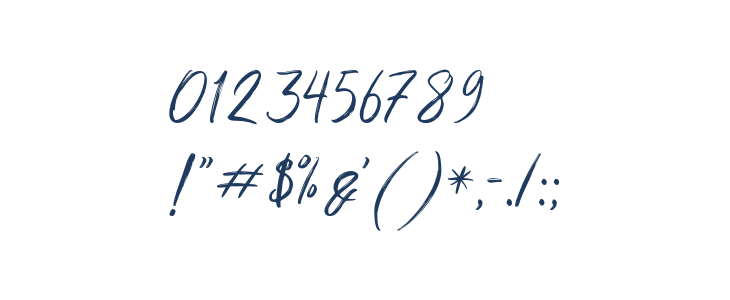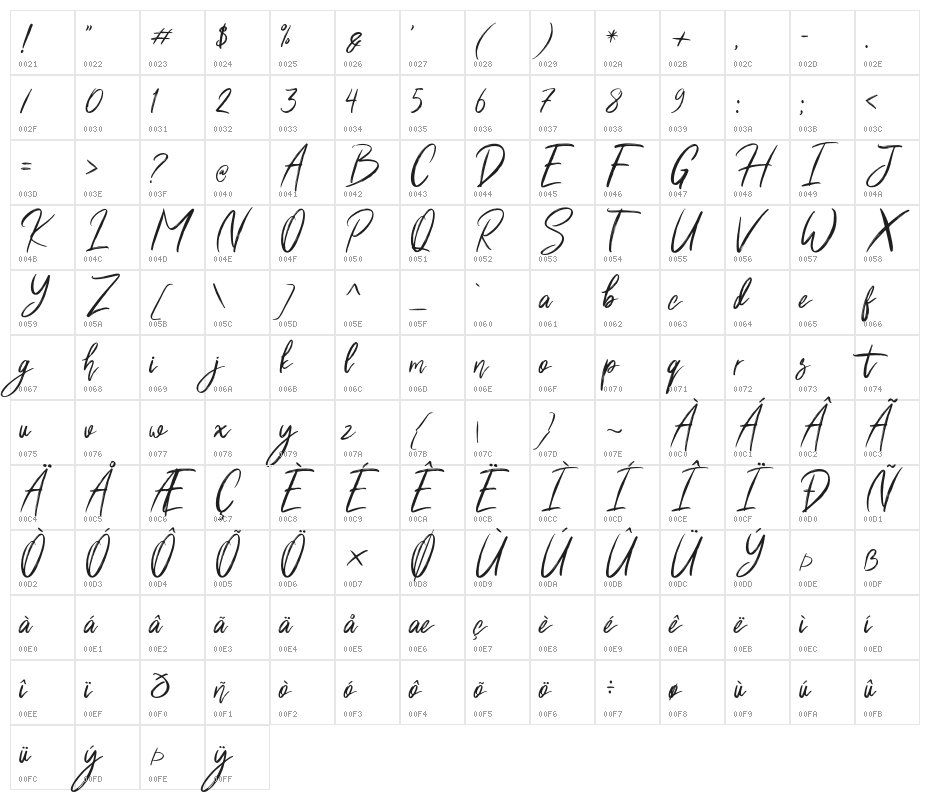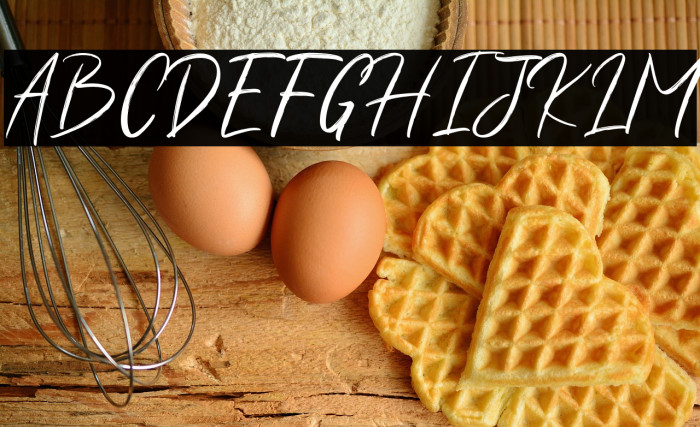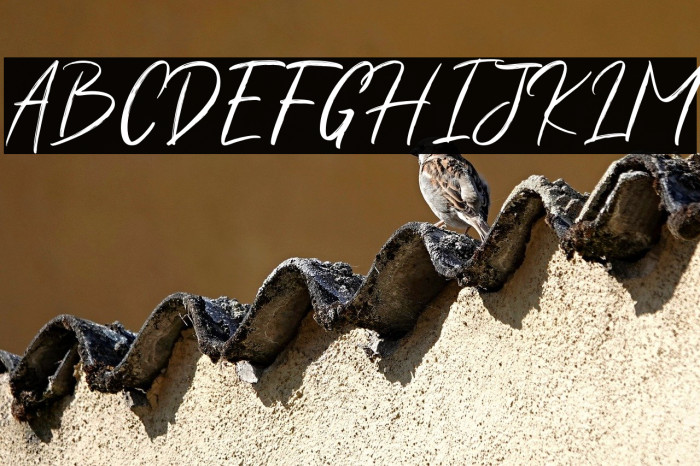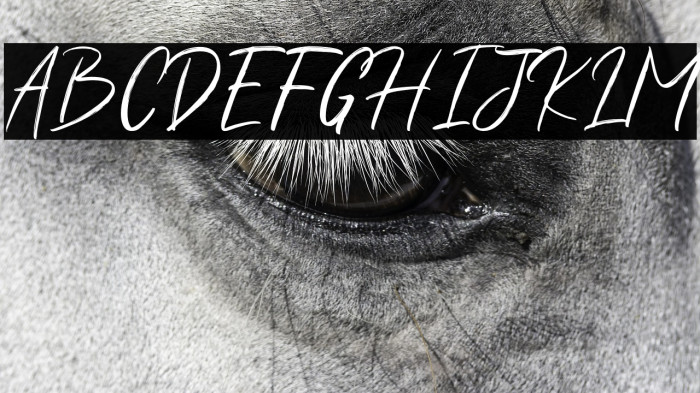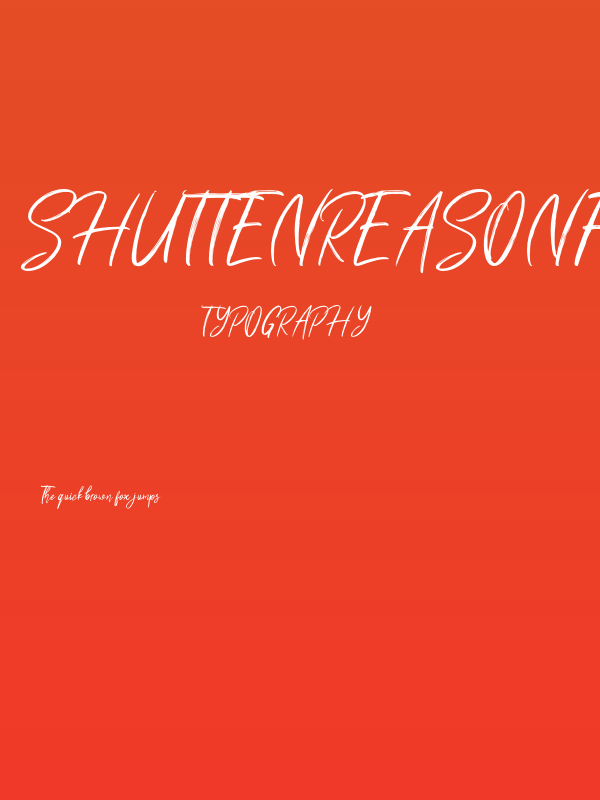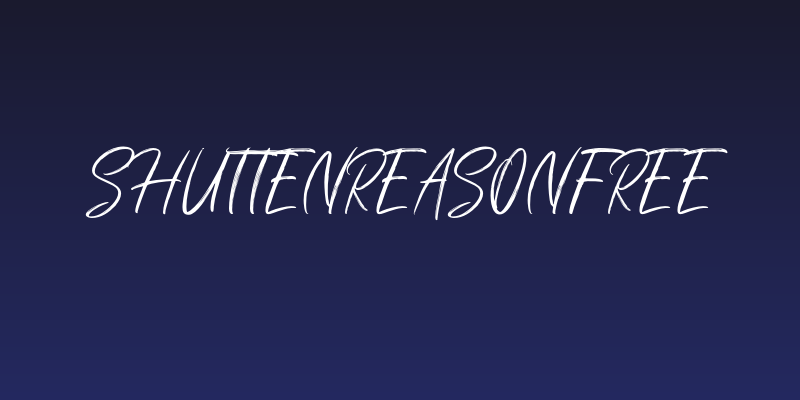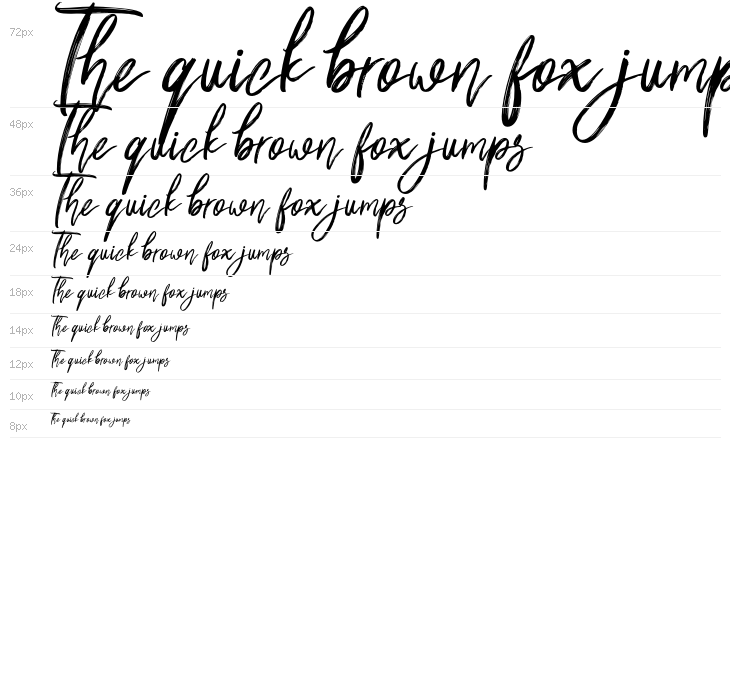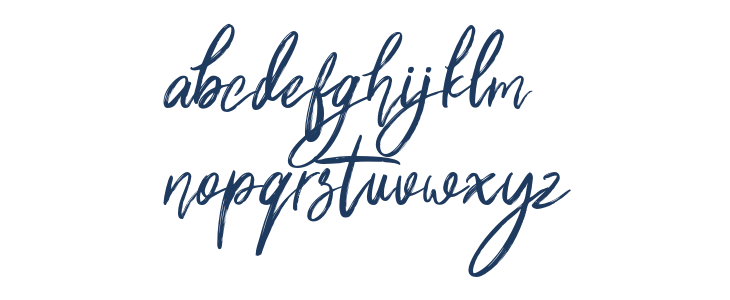
ShuttenReasonFree Font
ShuttenReasonFree Description
This font features a dynamic and flowing script style, characterized by its elegant and fluid strokes. The uppercase letters are tall and slightly slanted, giving a sense of movement and grace. The lowercase letters maintain a consistent flow, with some characters featuring loops and flourishes that enhance the handwritten feel. The numerals are well-integrated, maintaining the same fluidity as the alphabet. Special characters are thoughtfully designed to match the overall aesthetic, making this font versatile for various uses. The overall impression is one of sophistication and artistic flair, suitable for projects that require a personal and creative touch.
| Proposed Projects | Ideal for wedding invitations, greeting cards, branding projects, and any design that requires a personal touch. |